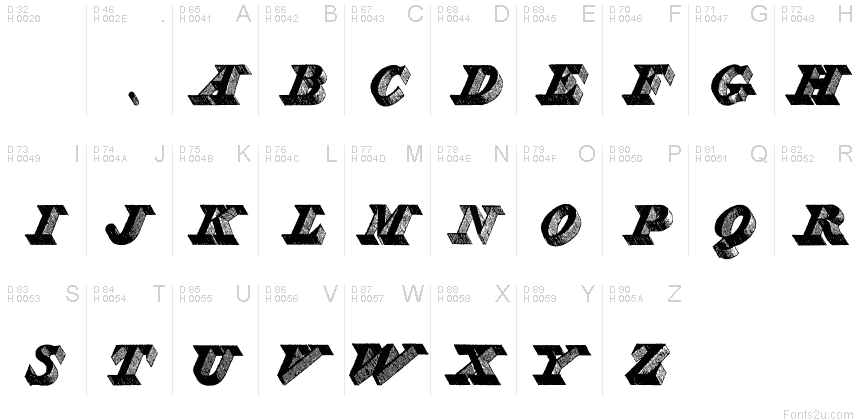
Engravier_Initials
Engravier Initials font by PJL is a free 3D engraved serif typeface with a bold, chiseled presence. Each letter looks carved from a dark slab, packed with dense crosshatching that creates a gritty, tactile shadow. The strong forward slant and chunky slabs give your words a sense of weight and motion, like an old signboard or metal nameplate brought to life.
Using Engravier Initials, you can instantly add vintage drama to book covers, posters, game logos, beer or spirits labels, tattoo flash sheets, and escape room branding. The heavy texture begs to be set large, where every etched line can be seen clearly. This free font pairs beautifully with a simple sans serif for supporting text, letting its engraved personality take center stage.